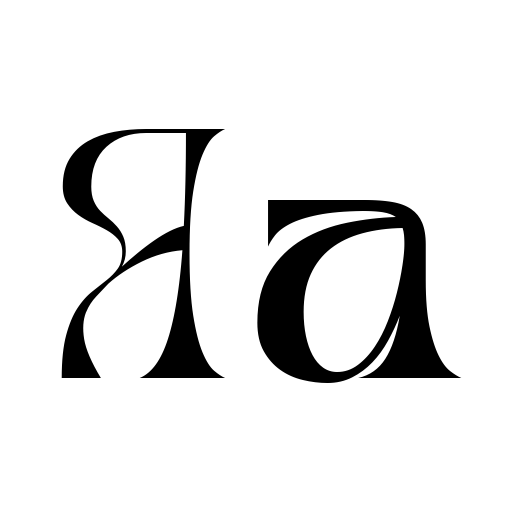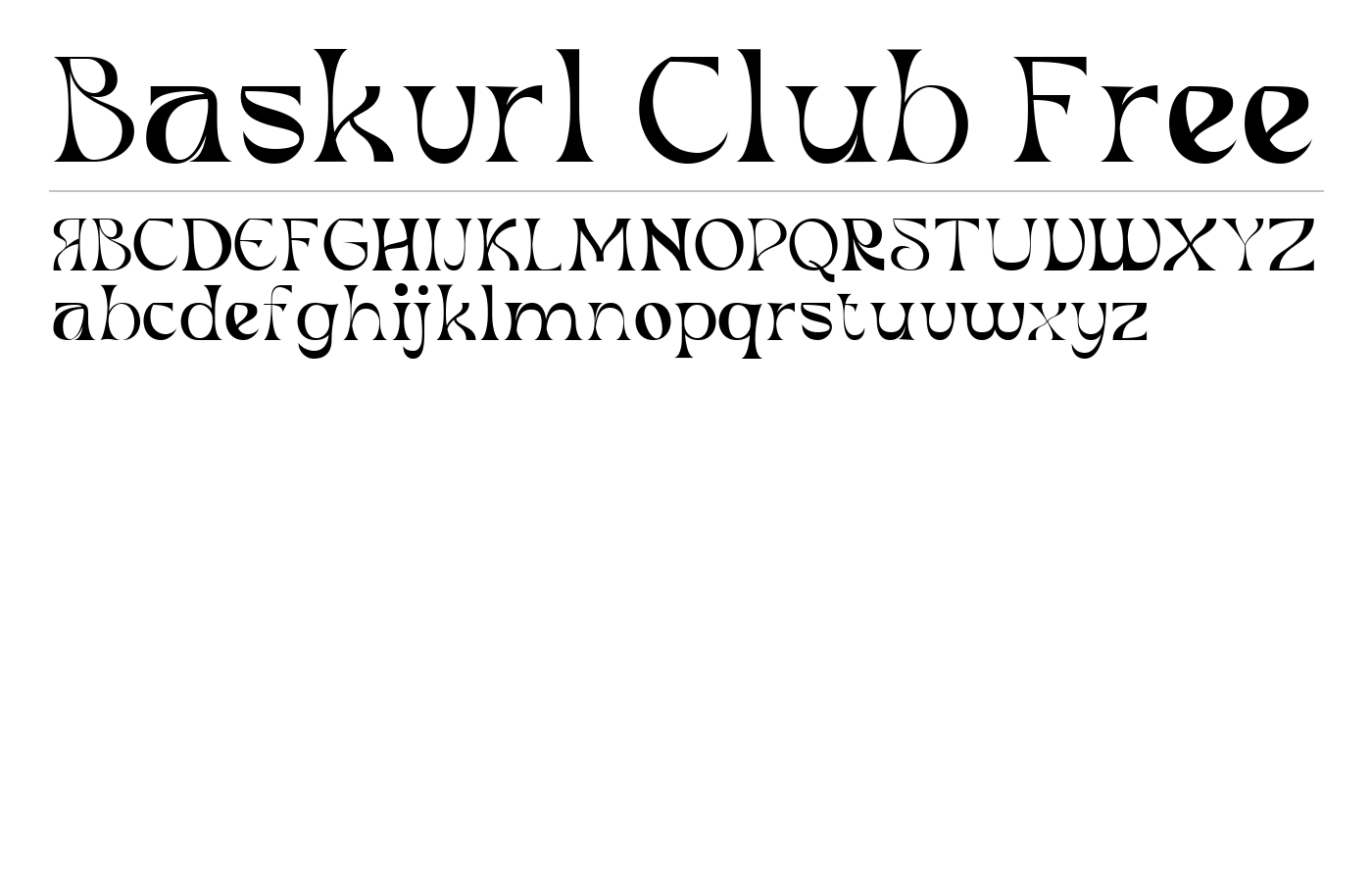
Baskvrl Club Free is a unique serif font blending modern and vintage vibes with its high contrast strokes and stylized, sharp serifs. It features elegant, artistic letterforms with distinct curves and shapes, making it ideal for creative branding, headlines, and fashion-focused designs seeking a sophisticated yet expressive look. This font stands out for its decorative personality while maintaining readability in display use.
Baskvrl Club Free Font
About Baskvrl Club Free Font